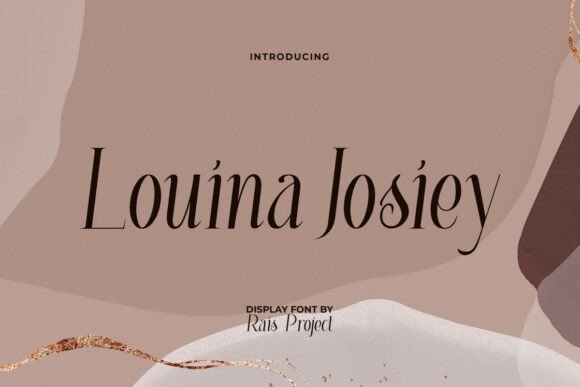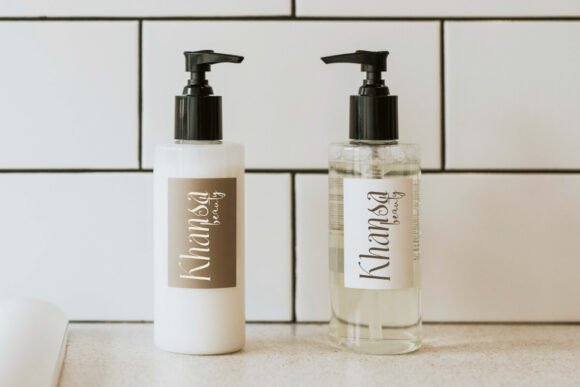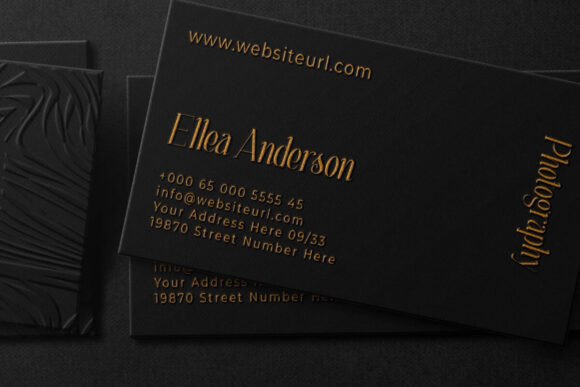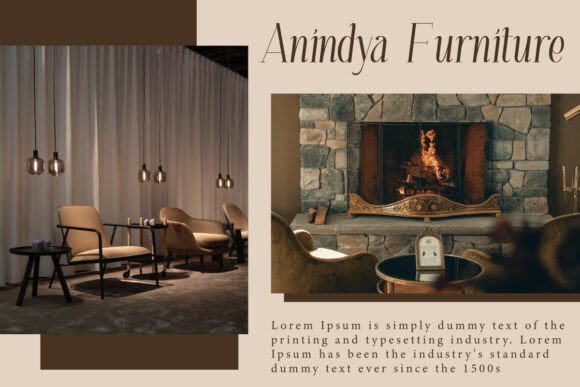
Louina Josiey Font
About the Louina Josiey Font
Meet Louina Josiey Font, a stunning font that brings a touch of elegance and professionalism to any design. Louina Josiey is an elegant and refined display font with a luxurious appeal. Featuring sharp serifs and graceful curves, this font is perfect for high-end branding, editorial designs, and sophisticated projects. Its timeless style makes it ideal for creating an upscale aesthetic in logos, invitations, or packaging.
Louina Josiey excels in display applications such as headlines, logos, and short, impactful text on packaging or posters. Its elegant nature makes it unsuitable for body copy or extended reading; the sharp serifs can hinder readability in smaller sizes. Avoid using it for UI elements or website body text.
The font’s refined personality pairs well with clean sans-serif fonts like Lato or Montserrat for a balanced contrast. For a more traditional feel, consider pairing it with a classic serif like Garamond or a slightly more modern serif like Playfair Display. A touch of playful contrast can be achieved by using a script font like Great Vibes as an accent.
Louina Josiey’s overall aesthetic is sophisticated and timeless, lending itself to luxury brands, high-end products, and projects requiring a sense of refined elegance. It projects an air of confidence and exclusivity.
Louina Josiey Font Usage Examples
Louina Josiey Font Example